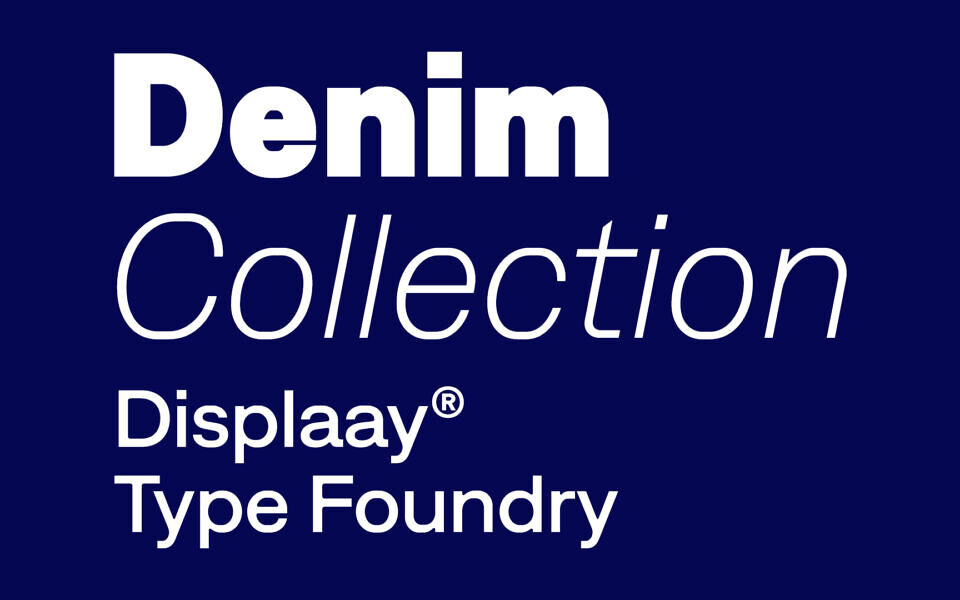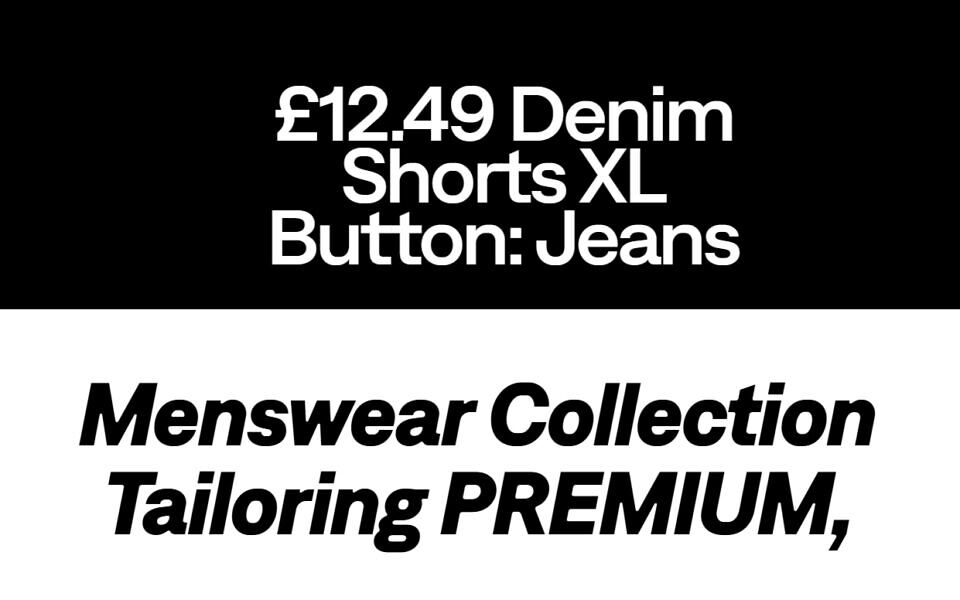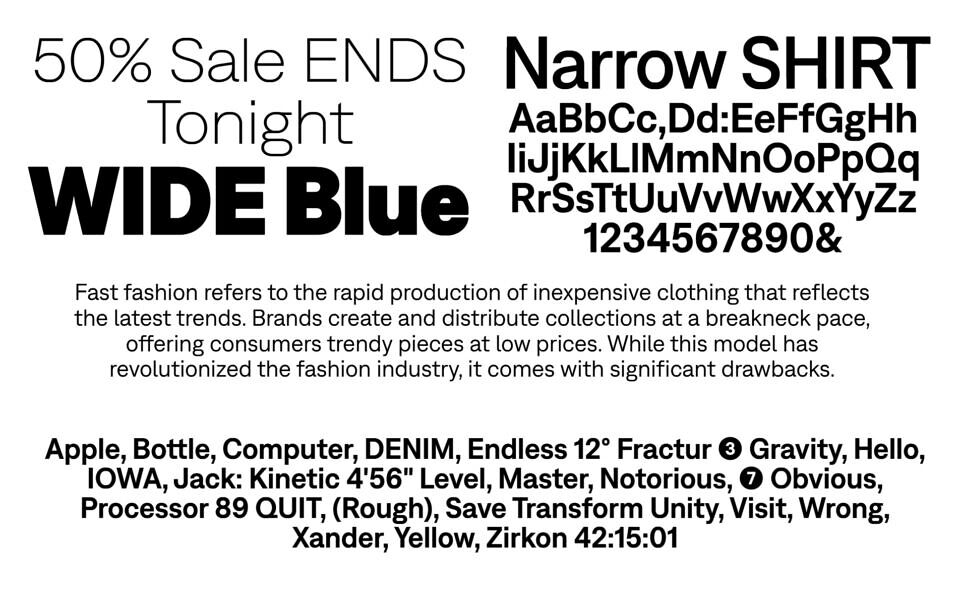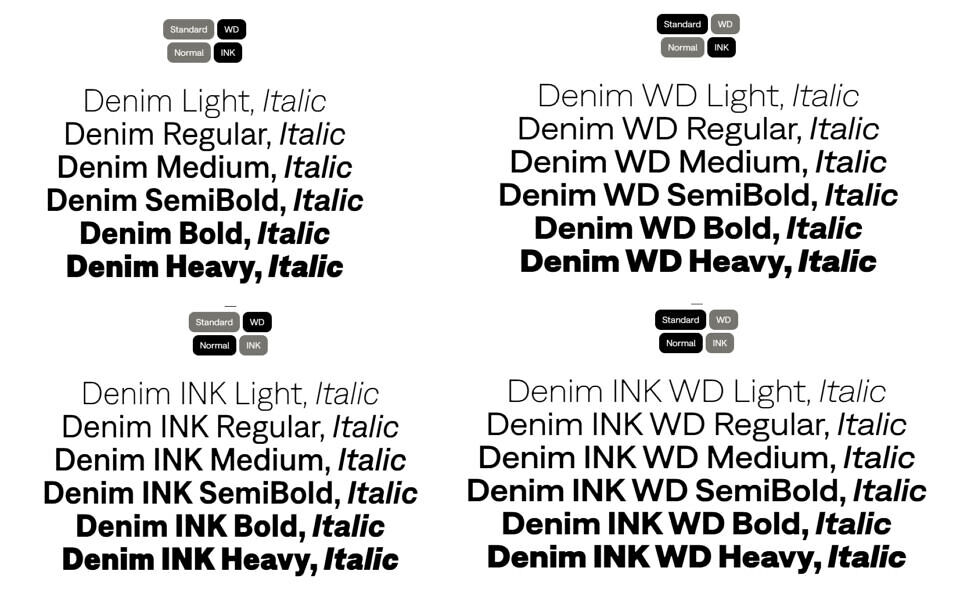
The sans-serif typeface “Denim” fits any situation. It’s great for smaller texts, but if you want to make a big splash, let it shine in large headlines. Moreover, thanks to the flattened overshoots, it sits perfectly on the line. These details make the typeface really special, which is supported by other features that bring a certain technical aspect while maintaining a humanistic feel.
For (not only) headlines and logos we designed a wider version called Denim WD. In addition, the new INK family with rounded inner corners was produced. Denim INK is available in both widths, the original narrow and the wider INK WD. The inspiration for this version was the silkscreen printing effect on denim and the small rounded details in “Q, R, g, y, 1”.